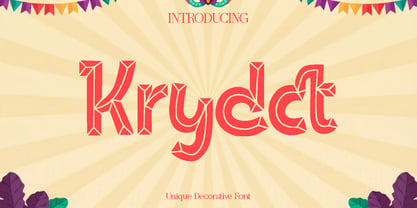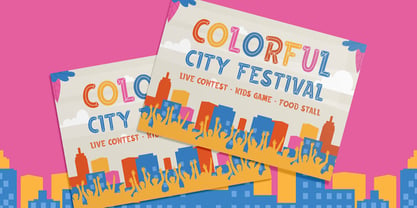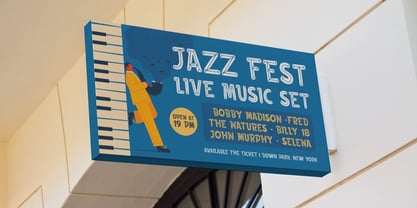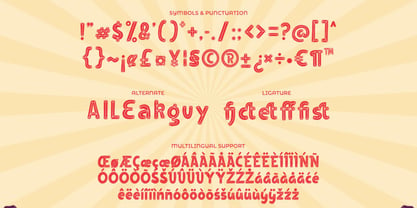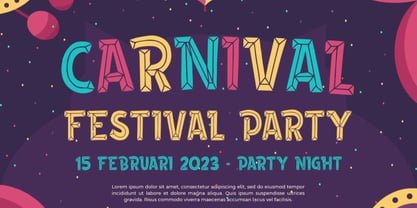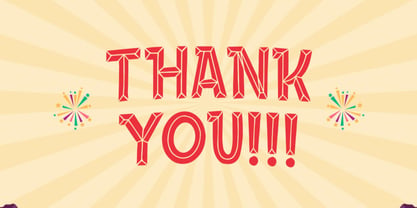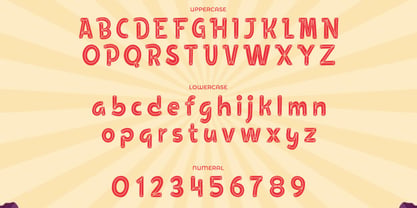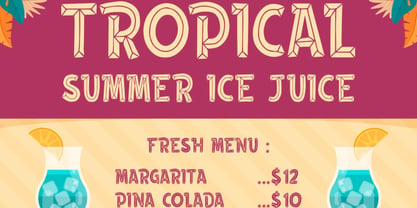
Krydct
by Only Fonts
The Krydct Font Family was designed by Olivia Love and published by Only Fonts. Krydct contains 1 styles. More about this family
Krydct is a striking bevel decorative font designed to infuse depth, dimension, and bold personality into your typography. Inspired by sculpted lettering and contemporary decorative trends, Krydct features sharp edges and subtle beveled details that enhance its structural integrity and visual impact. Its distinctive style makes every word feel crafted and expressive, providing your designs with a confident and eye-catching presence. This font excels in projects where a strong visual identity is crucial. Krydct is perfect for headlines, posters, album covers, branding, packaging, and social media graphics. Whether set against vibrant, busy backgrounds or used as a clean standalone title, its dimensional character ensures readability while adding a stylish decorative touch. The font exudes an energetic and modern feel, making it ideal for aesthetic visuals, creative campaigns, and experimental layouts. Krydct is tailored for designers seeking typography that is bold, artistic, and memorable. Its blend of decorative flair and solid structure allows it to adapt seamlessly across both digital and print applications, helping your work stand out with confidence and originality. Krydct Bevel Decorative Font Features: • Uppercase and lowercase • Ligatures and alternates • Symbols, punctuation, and numerals • Multilingual support
Designers: Olivia Love
Current Foundry: Only Fonts